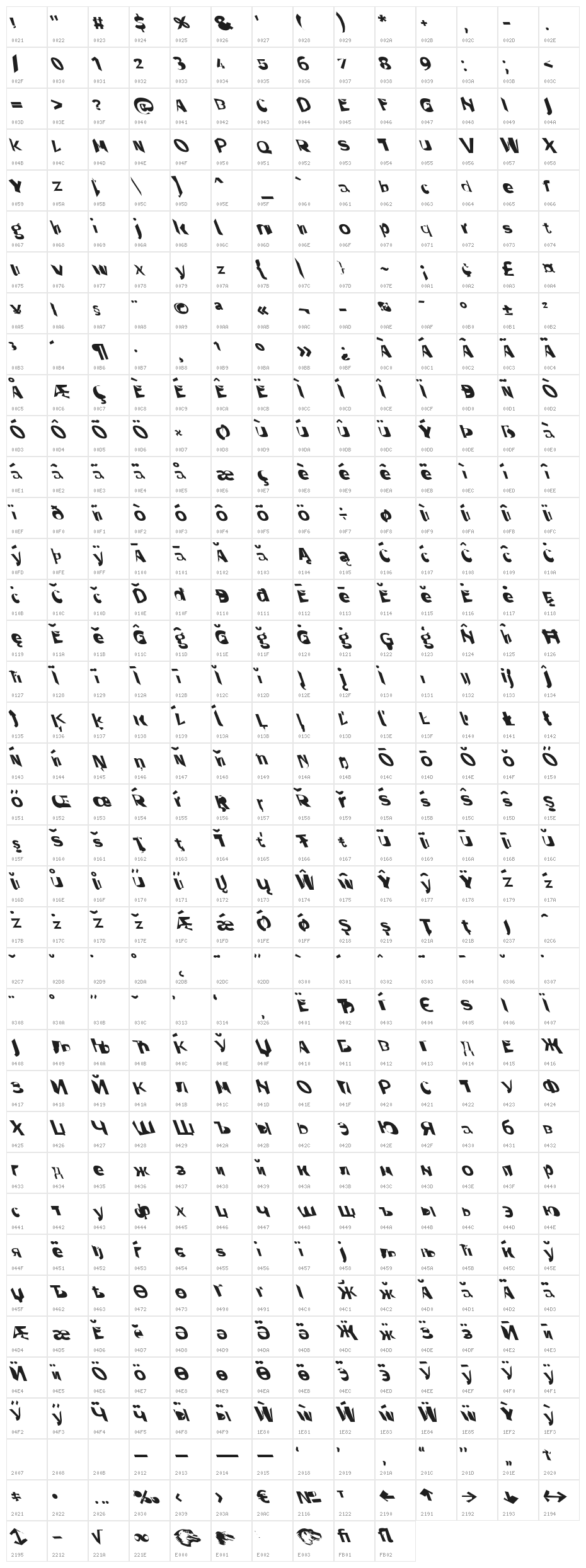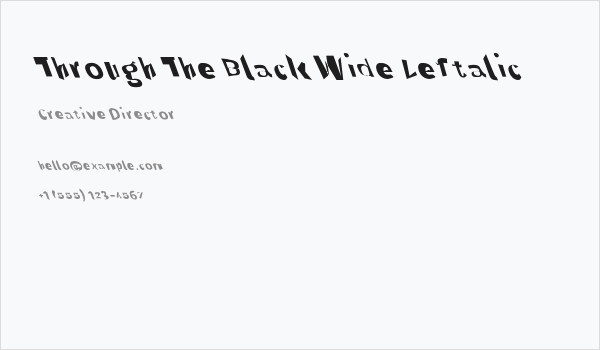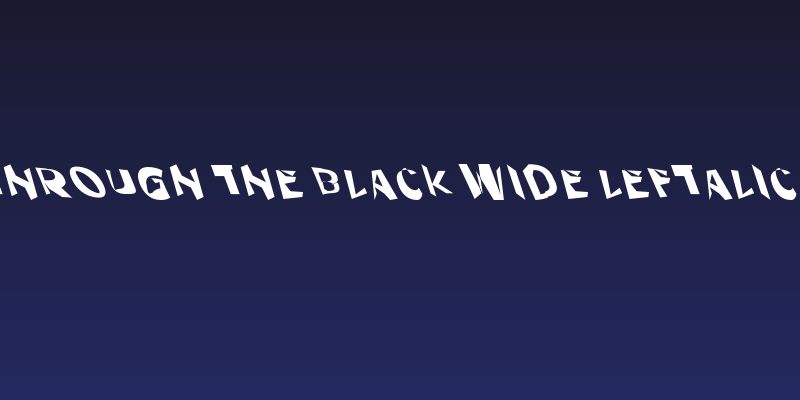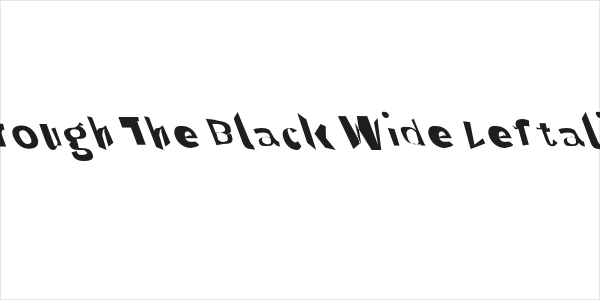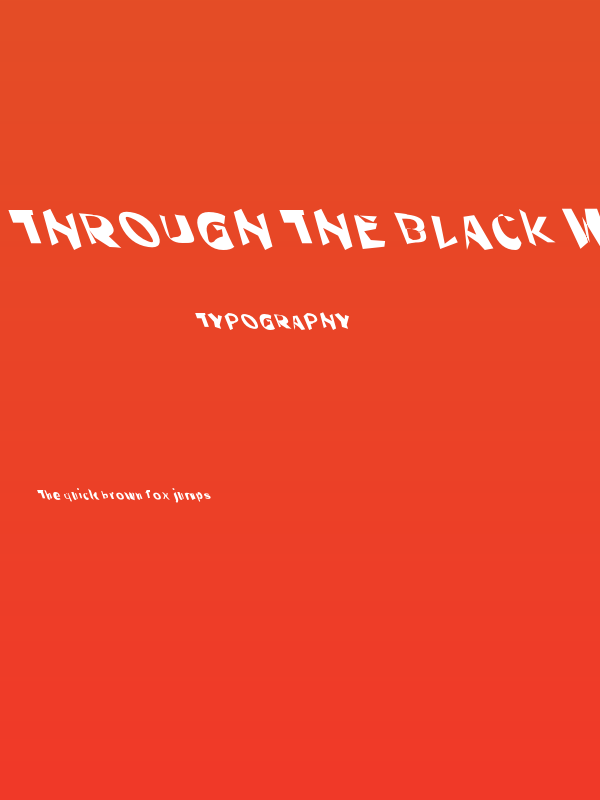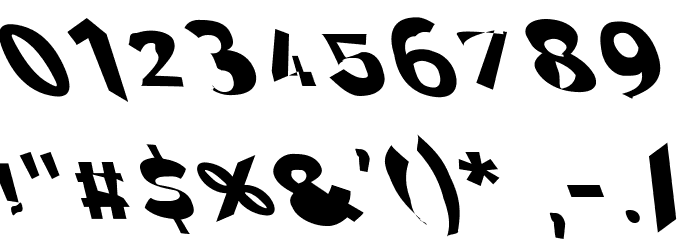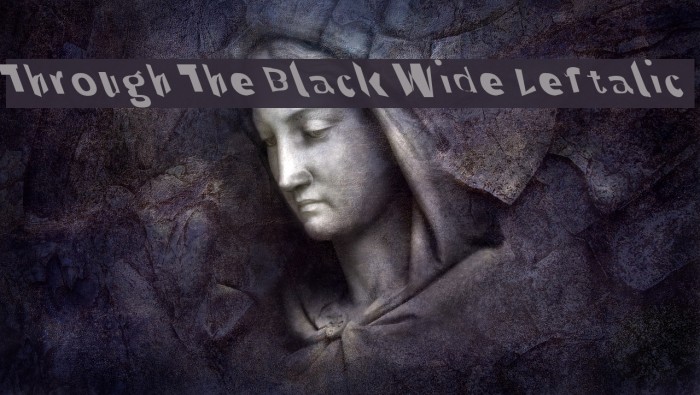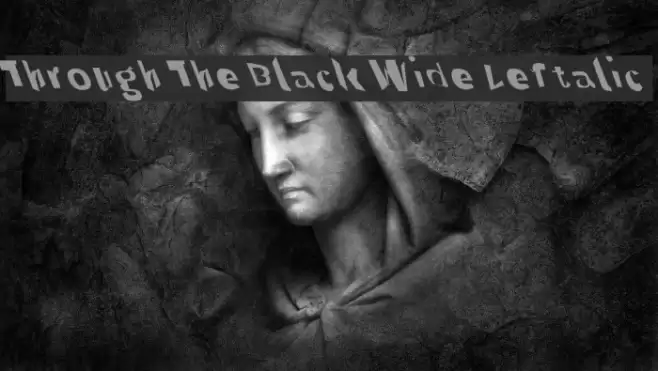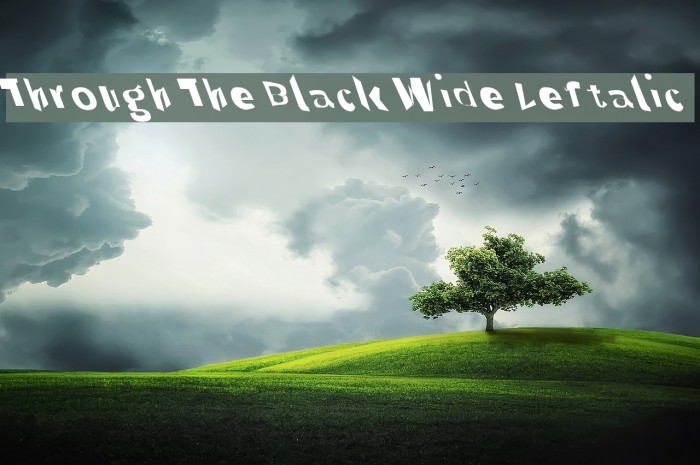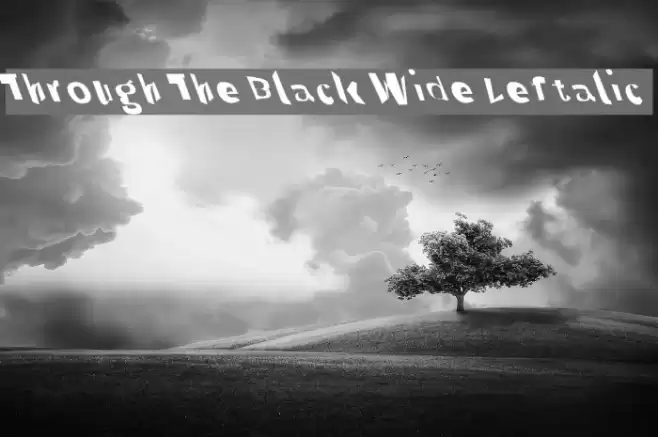
Through The Black Wide Leftalic Font
Through The Black Wide Leftalic Description
This font features a bold and dynamic style with a strong visual impact. The characters are designed with a wide and angular form, giving them a sense of movement and energy. The letters are slightly slanted, adding a unique italicized effect that enhances the overall aesthetic. The boldness of the strokes creates a high contrast, making the font highly legible and striking. The character spacing is relatively tight, which contributes to its cohesive and compact appearance. This font is ideal for projects that require a modern and edgy look, such as branding, posters, and headlines.